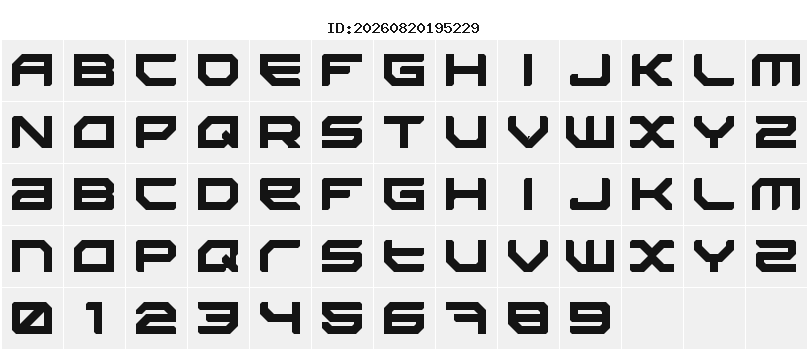
Sector 034 Preview
• Font Name: Sector 034
• Font ID: FontStruct Sector 034
• Full Font Name: Sector 034 Regular
• Designer: Neoqueto
• Description: “Sector 034” was built with FontStruct “Sector 034” is based on “Sector 017” by “Neoqueto” (http://fontstruct.com/fontstructors/neoqueto)
About Sector 034.ttf
Sector 034.ttf is a modern, elegant sans-serif font designed for ultimate readability and visual harmony. Perfect for branding, headlines, web design, and print materials.